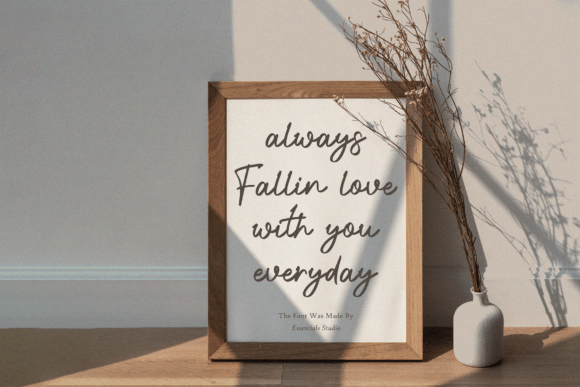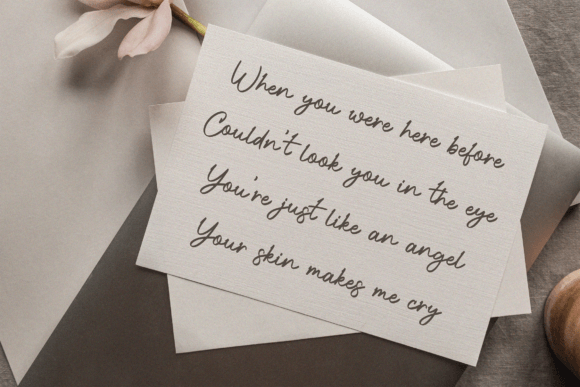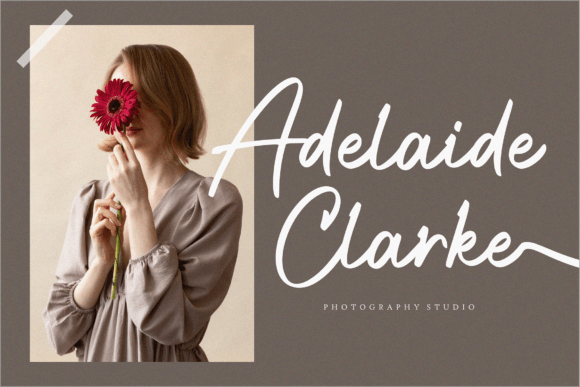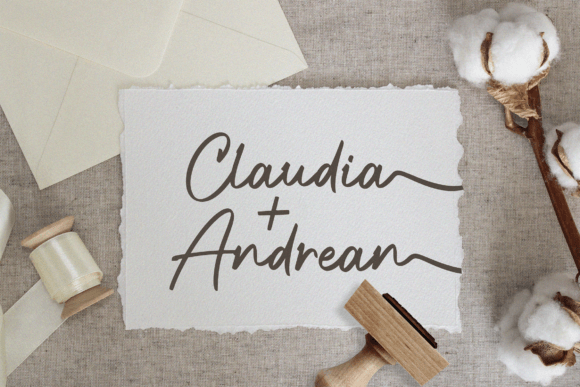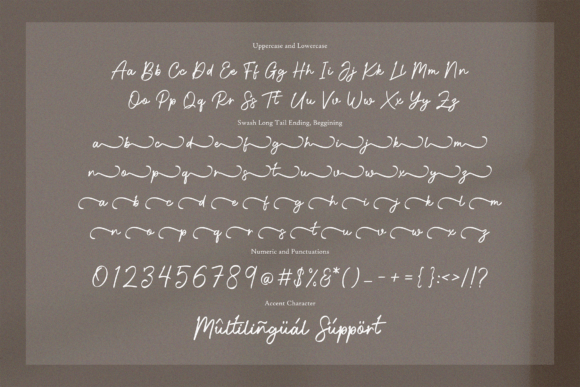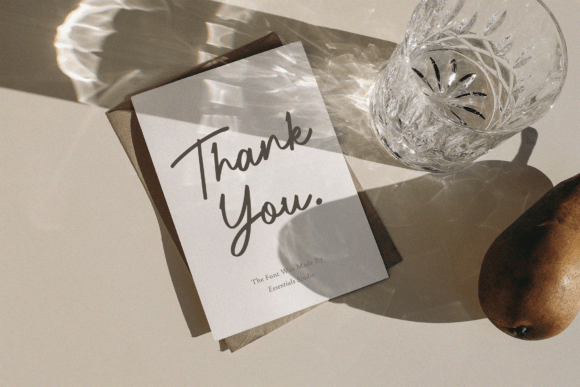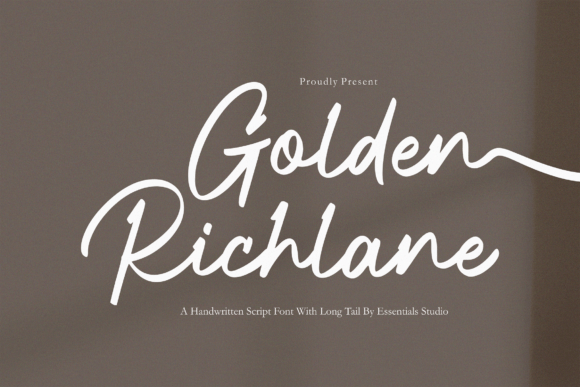
Introducing Golden Richlane Font: Elevate Your Designs with Elegance
In the world of typography, a font can make or break the aesthetic of a design. For those seeking a touch of luxury and sophistication, the Golden Richlane Font is an exquisite choice. This stylish and elegant handwritten font is perfect for adding a personal, refined touch to various design projects. Whether you’re working on wedding invitations, thank you cards, quotes, greeting cards, logos, business cards, or any other creative endeavor, Golden Richlane is sure to impress.
The Essence of Golden Richlane Font
Golden Richlane is more than just a font; it’s an experience. Its elegant strokes and refined appearance bring a sense of opulence and class to any design. The font’s unique charm lies in its ability to convey warmth and sophistication simultaneously, making it an ideal choice for designers and crafters aiming to create memorable and impactful pieces.
One of the standout features of the Golden Richlane Font is its versatility. Its elegant and flowing script can be used across a wide range of projects, including:
- Wedding Invitations: Add a touch of romance and luxury to your wedding invites with Golden Richlane.
- Thank You Cards: Express your gratitude with style and elegance.
- Quotes: Make your inspirational or love quotes even more special with this beautiful font.
- Greeting Cards: From birthday wishes to holiday greetings, Golden Richlane adds a personal touch.
- Logos: Elevate your brand’s identity with a sophisticated and memorable logo.
- Business Cards: Stand out in the professional world with a card that exudes elegance.
Why Choose Golden Richlane Font?
There are several reasons why Golden Richlane should be your go-to font for elegant designs:
- Unique Aesthetic: Its distinctive and stylish appearance sets it apart from more common fonts.
- High Readability: Despite its elegant nature, Golden Richlane maintains high readability, making it suitable for both headings and body text.
- Emotional Connection: The warmth and elegance of the font help create an emotional connection with the reader.
Tips for Using Golden Richlane Font Effectively
To maximize the impact of Golden Richlane in your designs, consider the following tips:
- Pair with Simplicity: Let Golden Richlane be the focal point by pairing it with simpler fonts or clean backgrounds.
- Experiment with Colors: While the font’s golden hue is stunning, don’t be afraid to experiment with other colors that complement your design’s theme.
- Play with Sizes: Utilize different font sizes to create a hierarchy of information and add depth to your design.
- Embellish with Graphics: When appropriate, add subtle graphics or flourishes that complement the elegant nature of Golden Richlane.
| Font Name | Golden Richlane Font |
| Author | Essentials Studio |
Golden Richlane Font offers a unique blend of elegance, sophistication, and warmth, making it an invaluable asset for designers and crafters. Its versatility and aesthetic appeal ensure that it can elevate a wide range of design projects, from personal to professional. By incorporating Golden Richlane into your typography arsenal, you’ll be well-equipped to create stunning, memorable designs that leave a lasting impression.